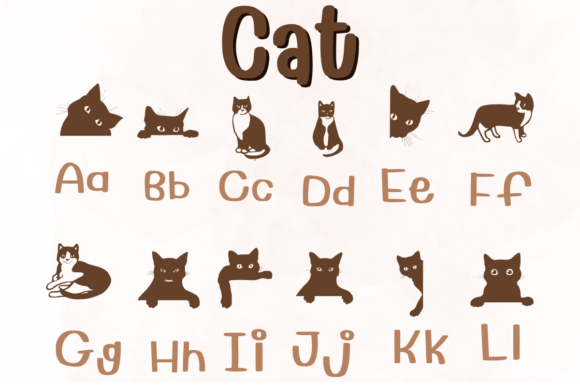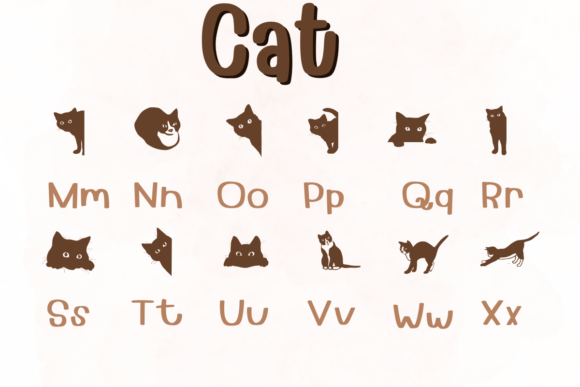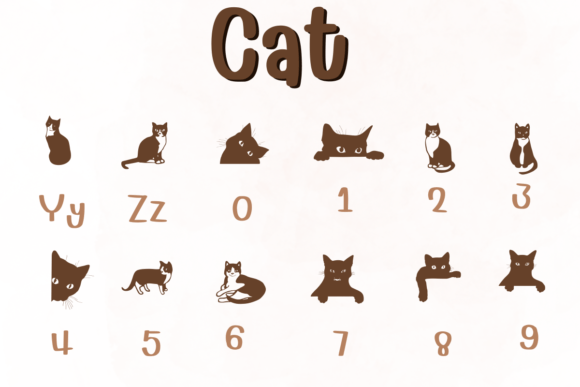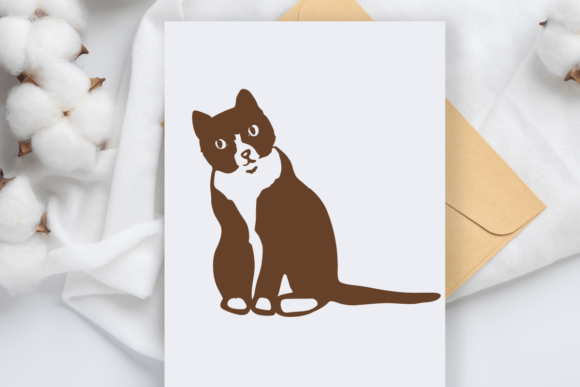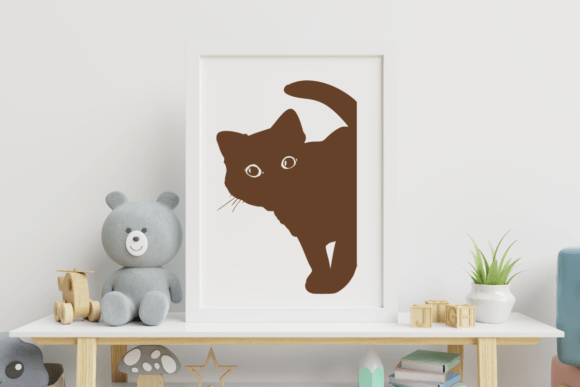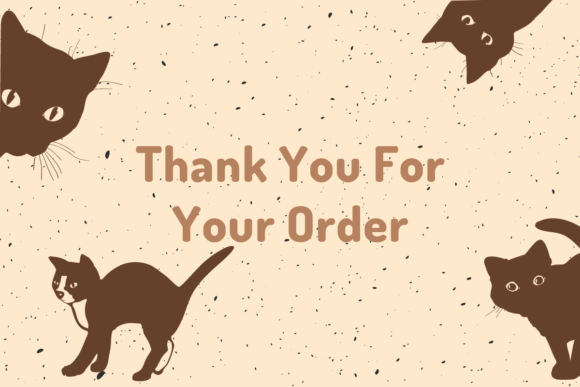
Introducing Cat Cute Font: The Purrfect Addition to Your Design Projects
Are you tired of using the same old fonts in your design projects? Do you want to add a touch of whimsy and playfulness to your creations? Look no further than the Cat Cute Font, a fun and adorable dingbat font that features cute cat designs instead of regular letters. In this article, we’ll take a closer look at this delightful font and explore its many uses for designers and crafters.
What is Cat Cute Font?
Cat Cute Font is a unique and charming dingbat font that replaces traditional letters with adorable cat illustrations. Each character in the font is a different cute cat design, making it perfect for adding a playful touch to your projects. Whether you’re designing a greeting card, a craft project, or a social media graphic, Cat Cute Font is sure to bring a smile to your audience’s faces.
Key Features of Cat Cute Font
- Adorable cat illustrations: Each character in the font is a different cute cat design, making it perfect for cat lovers and those who love whimsical designs.
- Playful and fun: Cat Cute Font is designed to add a touch of playfulness to your projects, making it perfect for designs that require a lighthearted and humorous tone.
- Dingbat font: Cat Cute Font is a dingbat font, which means that it features symbols and illustrations instead of traditional letters.
- Perfect for crafters and designers: Cat Cute Font is a versatile font that can be used in a variety of design projects, from crafting and scrapbooking to graphic design and digital art.
Uses for Cat Cute Font
Cat Cute Font is a versatile font that can be used in a variety of design projects. Here are some ideas to get you started:
- Greeting cards: Add a touch of whimsy to your greeting cards with Cat Cute Font. Perfect for cat lovers and those who appreciate playful designs.
- Crafting and scrapbooking: Use Cat Cute Font to add a personal touch to your crafting and scrapbooking projects. Perfect for journaling, titles, and headings.
- Social media graphics: Add a playful touch to your social media graphics with Cat Cute Font. Perfect for creating engaging and shareable content.
- Digital art: Use Cat Cute Font to add a touch of whimsy to your digital art projects. Perfect for creating illustrations, animations, and other digital designs.
Tips for Using Cat Cute Font
Here are some tips for using Cat Cute Font in your design projects:
- Use it sparingly: While Cat Cute Font is adorable, it can be overwhelming if used too much. Use it sparingly to add a touch of whimsy to your designs.
- Pair it with other fonts: Pair Cat Cute Font with other fonts to create a unique and interesting design. Try pairing it with a bold font for a fun and playful look.
- Experiment with colors: Cat Cute Font looks great in a variety of colors. Experiment with different colors to find the perfect look for your design.
Cat Cute Font is a fun and playful dingbat font that features adorable cat designs instead of regular letters. With its adorable cat illustrations, playful tone, and versatility, it’s perfect for adding a touch of whimsy to your design projects. Whether you’re a designer, crafter, or digital artist, Cat Cute Font is a great addition to your font collection. So why not give it a try and see how it can add a touch of playfulness to your designs?